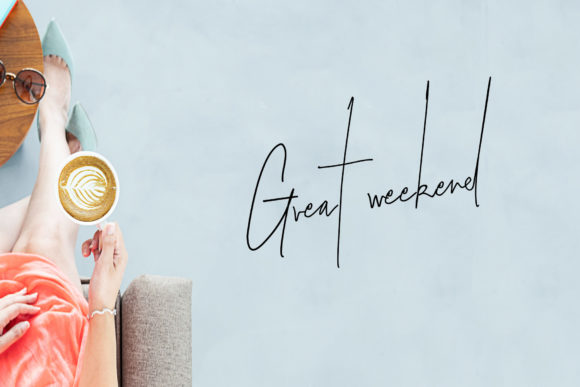
Blacknight: The Elegant Script Font for Marketers
In the crowded digital landscape, where attention spans are measured in milliseconds, Blacknight is a fun and elegant script with a powerful feel that instantly captures the eye. As content creators and marketing specialists, we know that Fonts are not just decorative elements; they are the voice of our visual campaigns. When you integrate a Script Handwritten typeface like Blacknight into your workflow, you are choosing a tool that balances authenticity with high-impact design. This font allows brands to break through the noise of generic sans-serif templates and deliver a message that feels personal, curated, and undeniably premium.
Blacknight for High-Impact Social Media Graphics and Reels Covers
When scrolling through Instagram or TikTok, audiences are conditioned to stop only for visuals that promise value or emotion, which is why Blacknight is a fun and elegant script with a powerful feel designed specifically to halt that scroll. For social media managers creating Reels covers, story highlights, or carousel headers, this Script Handwritten style offers the perfect blend of approachability and sophistication. Unlike rigid geometric fonts, the organic flow of these Fonts mimics human connection, making promotional posts feel less like advertisements and more like recommendations from a friend.
Imagine a lifestyle brand launching a new summer collection; using Blacknight for the main headline on a Pinterest pin creates an immediate sense of aspiration and elegance. The authentic vibe of the typeface ensures that even short captions or overlay text on video thumbnails stand out against busy backgrounds. By leveraging the dynamic strokes of this display font, you can guide the viewer's eye directly to your call-to-action without overwhelming them with visual clutter. Whether it is a "Shop Now" button or a teaser for a webinar, the personality of Blacknight ensures your message lands with clarity and style.
Elevating Brand Identity with Authentic Script Typography
Building a recognizable brand identity requires consistency, and Blacknight is a fun and elegant script with a powerful feel that serves as a cornerstone for cohesive visual storytelling. In the world of modern typography, many businesses struggle to find a balance between corporate professionalism and creative flair. This Script Handwritten font bridges that gap by offering a unique signature look that distinguishes your logo marks, email headers, and website banners from competitors relying on standard system fonts. When you apply Blacknight across your digital assets, you create a unified aesthetic that reinforces trust and memorability.
For small business owners and personal branders, the ability to project an authentic vibe is crucial for audience engagement. Using Blacknight in your email newsletter subject lines or landing page hero sections signals that your brand values craftsmanship and individuality. The fluid curves and confident weight of the letters suggest a premium quality, subtly influencing how customers perceive your products before they even read the body copy. This psychological impact is essential for product launches and seasonal promotions where first impressions dictate conversion rates. By adopting this creative font, you transform simple text into a strategic brand asset that resonates deeply with your target demographic.
Strategic Font Pairing for Readable Campaign Messaging
While Blacknight is a fun and elegant script with a powerful feel, successful marketing communication relies on balancing expressive headlines with highly readable body text. To maximize the effectiveness of this Script Handwritten typeface, it is vital to understand proper font pairing strategies that enhance hierarchy and legibility. A classic and effective combination involves placing Blacknext alongside a clean sans serif font for captions, bullet points, and detailed descriptions. This contrast ensures that while the headline grabs attention, the supporting information remains accessible on mobile screens and fast-scrolling feeds.
Alternatively, for editorial designs or luxury packaging concepts, pairing Blacknight with a refined serif font can amplify the sophisticated tone of your campaign. This approach works exceptionally well for blog post titles, magazine-style layouts, or event invitations where a touch of tradition complements the modern energy of the script. When designing digital ads or promo graphics, always test the size and spacing of Blacknight to ensure it remains crisp on smaller devices. The goal is to use the font for short text, titles, and decorative accents rather than long paragraphs, preserving its visual impact and preventing readability issues. By mastering these pairings, you create a harmonious design language that guides the user effortlessly through your content.
Maximizing Engagement with Premium Display Fonts
In an era where generic design templates dominate the web, Blacknight is a fun and elegant script with a powerful feel that acts as a differentiator for serious marketers and designers. Utilizing a premium font like this elevates the perceived value of your content, signaling to your audience that you invest in quality details. Whether you are crafting a sale announcement for an online shop or designing a branded template for client presentations, the distinctive character of these Fonts commands respect and curiosity. The authentic vibe inherent in the design encourages users to pause, engage, and interact with your material rather than gliding past it.
Consider the application of Blacknight in a series of inspirational quote graphics or a YouTube thumbnail for a tutorial video; the handwritten nature of the typeface adds a layer of warmth and relatability that static block letters cannot achieve. It transforms a standard graphic into a piece of art that people want to save, share, and comment on. However, before deploying this commercial font in large-scale ad campaigns, merchandise, or client projects, it is imperative to review the licensing terms to ensure full compliance. Protecting your intellectual property while delivering stunning visuals is a key part of professional design management. With Blacknight, you have a versatile tool ready to power your next big campaign, ensuring your brand stands out with elegance and authority.